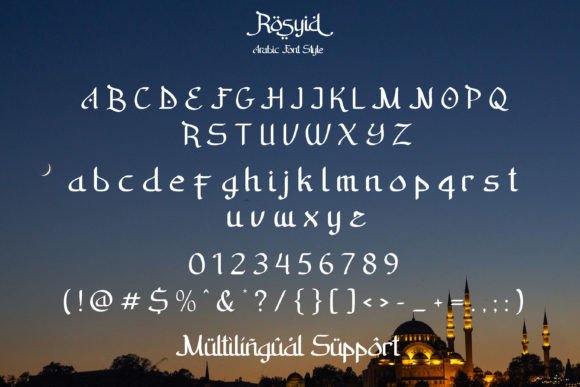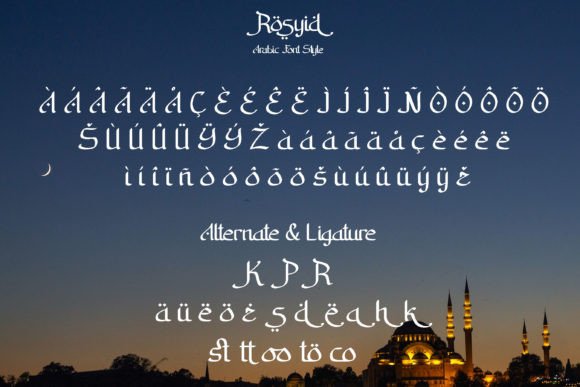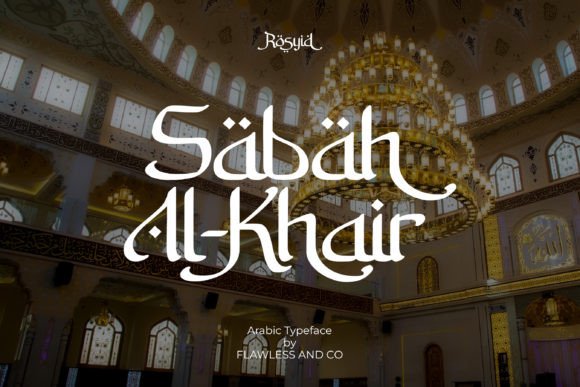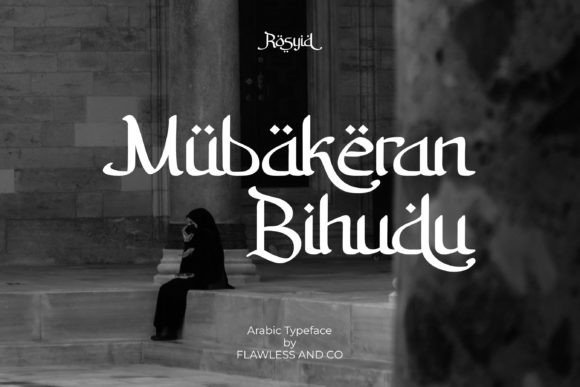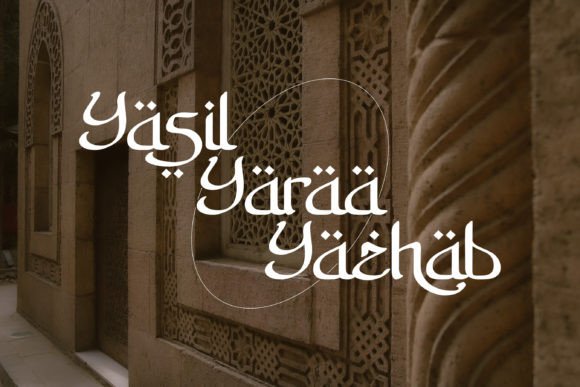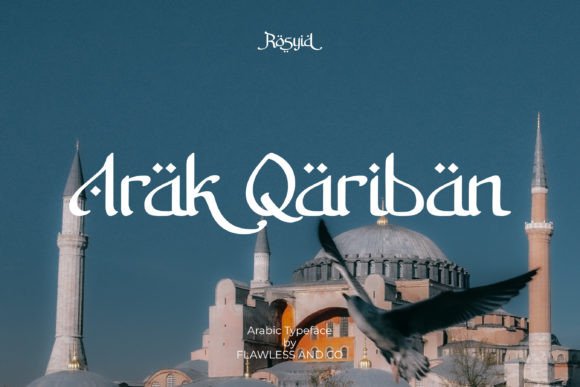
Introduction to Rosyid Font
Rosyid is a beautifully crafted Ramadan Arabic font style that is perfect for your creative projects.
Designed with a modern touch, this font features elegant calligraphic strokes and bold lines that make it stand out from the crowd Its unique style is ideal for designing Ramadan-related graphics, such as greeting cards, banners, and social media posts.